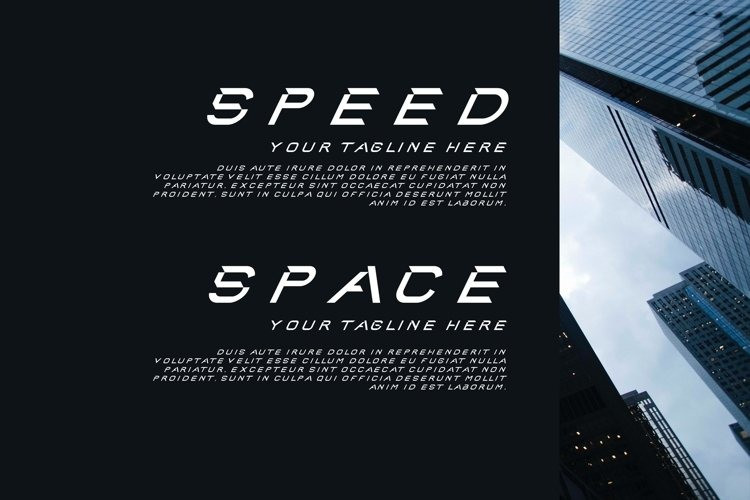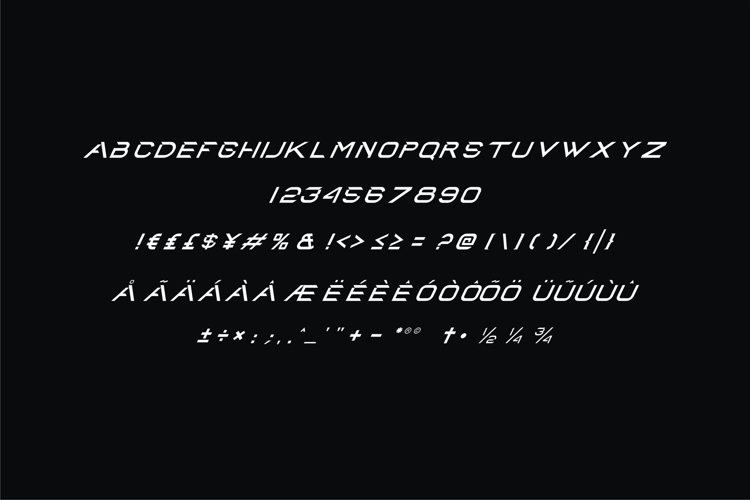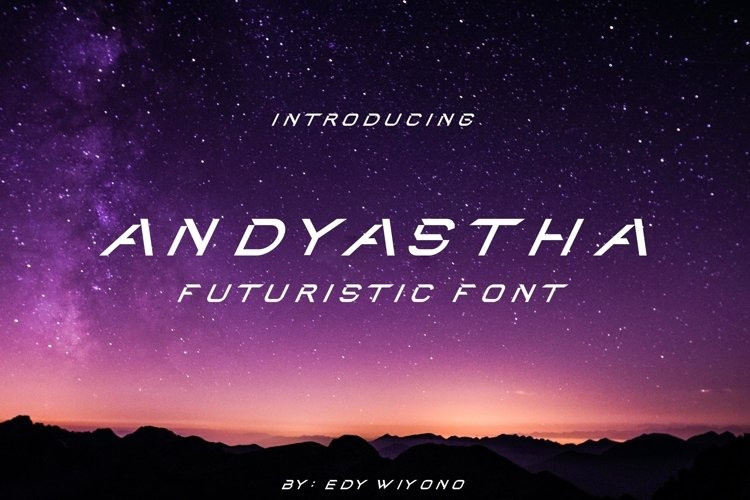
Andyasta Display Font
Andyastha is a font with a modern and futuristic style, this font is very suitable to be applied on websites, magazines and logos with a modern, male and futuristic concept. thank you